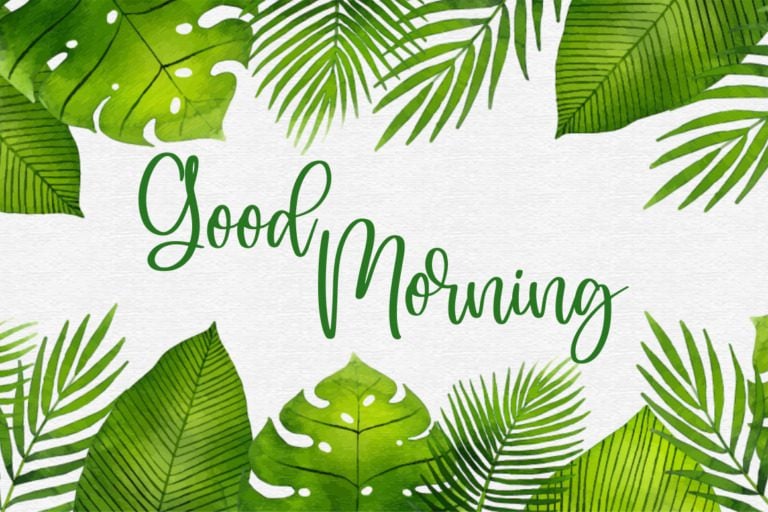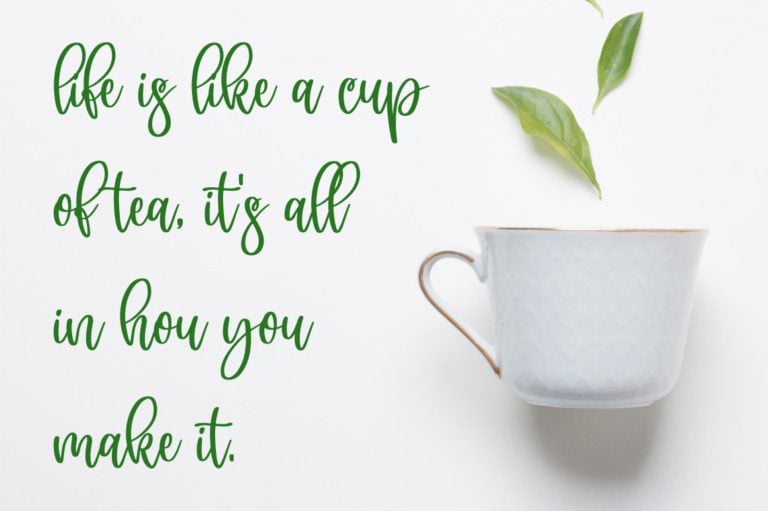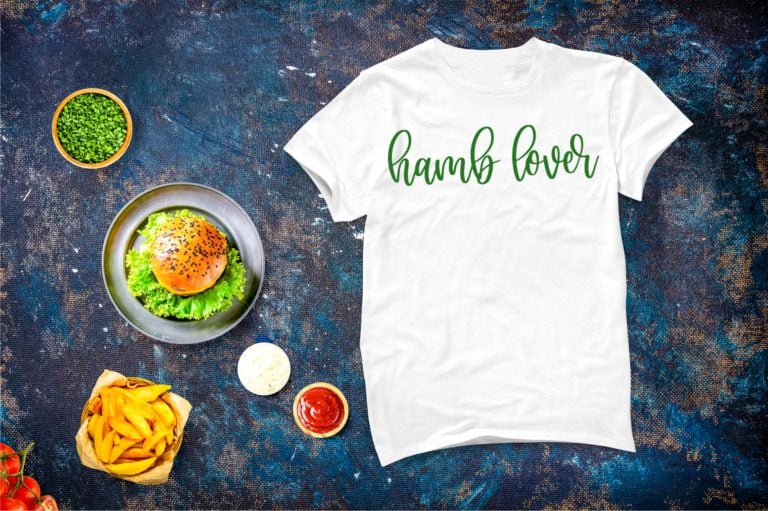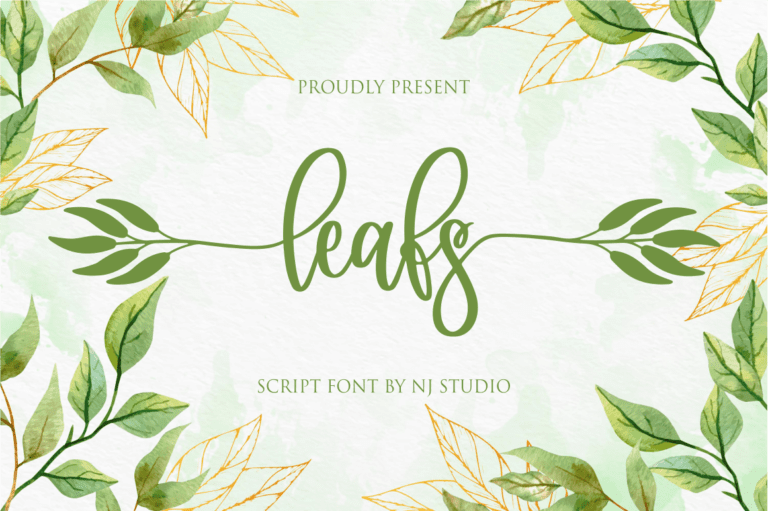
Leafs Font
Leafs is a graceful script font that evokes a handwritten feel. Its flowing curves and delicate strokes create a sense of elegance and beauty. Perfect for adding a touch of nature-inspired charm to your designs, Leafs is ideal for wedding invitations, greeting cards, branding materials, and more.